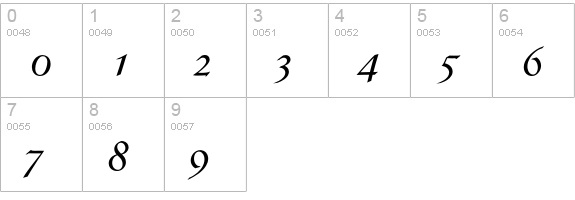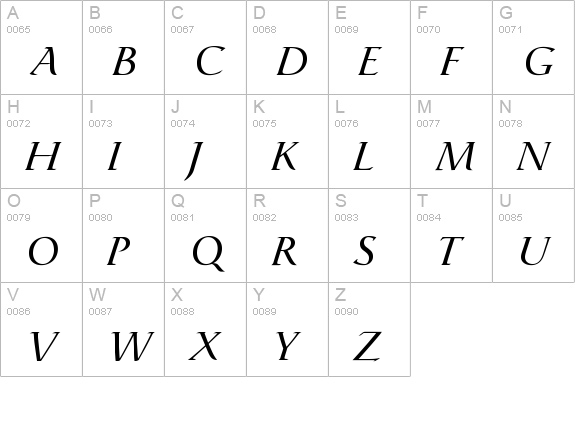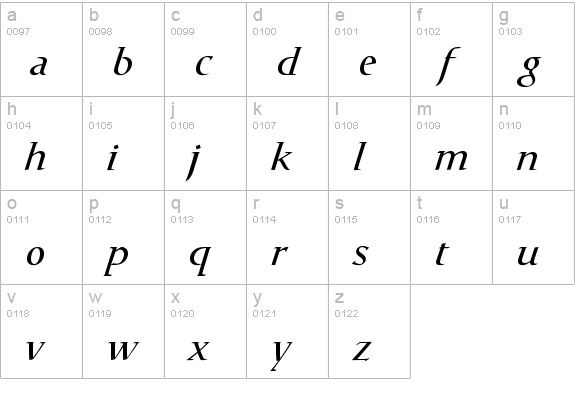
Catull Expert BQ Italic OsF Font Details
Catull Expert BQ Italic OsF is a distinctive, italic variant in the Catull typeface family \xE2\x80\x94 well suited to design and typography projects.
Catull Expert BQ Italic OsF font is a sophisticated and elegant typeface designed for professional and creative projects. With its sleek and modern appearance, this font exudes a sense of style and class. The italic style adds a touch of flair and uniqueness to any design, making it perfect for branding, advertising, or editorial use. What sets Catull Expert BQ Italic OsF font apart is its expertly crafted design, ensuring optimal readability and visual appeal. Whether used in print or digital media, this font will make your content stand out and leave a lasting impression on your audience. Best of all, Catull Expert BQ Italic OsF font is available for free download at FontsMarket.com. This means you can easily access and use this high-quality font in your projects without any cost. Don't miss out on the opportunity to elevate your designs with the elegance and sophistication of Catull Expert BQ Italic OsF font. Download it today and start creating stunning visuals that make a statement.